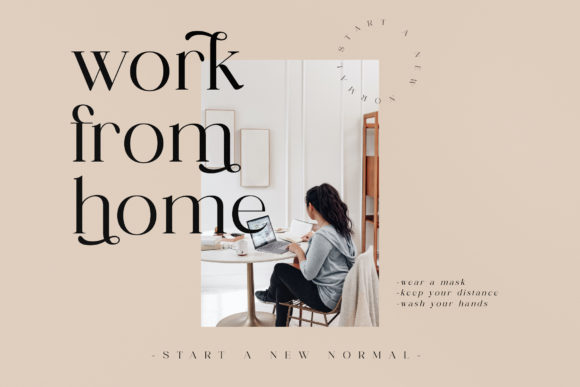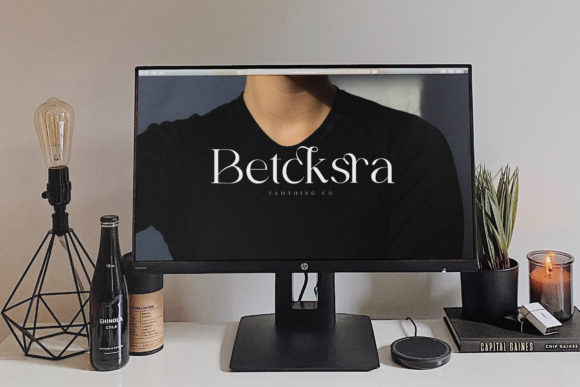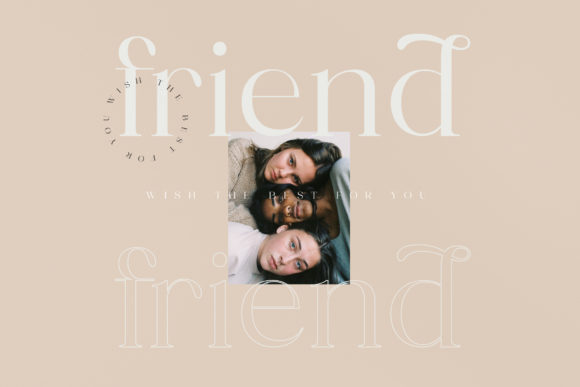
Introduction to Mafisha Font
Have you ever been in the middle of a creative project, staring at a blank canvas or screen, and suddenly, the perfect font pops into your head? For designers, this moment is like a breath of fresh air – it can make or break the entire aesthetic of a project. For me, that moment came when I discovered the Mafisha Font, a stunning serif typeface that exudes elegance and sophistication.
As a valuable design resource, Mafisha Font offers a high-quality, modern look that’s perfect for luxury logo designs, book titles, fashion brands, and magazine covers. With its unique style and transparent background, this font is a game-changer for any creative project. And the best part? It’s available for free download, making it an instant favorite among designers.
Key Features of Mafisha Font
- High-quality design for creative projects, perfect for graphic designers and artists.
- Unique and stylish design elements, making it an ideal choice for creative projects that require a touch of elegance.
Honest Review: Mafisha Font
- High-quality design: The Mafisha Font is well-crafted, with clean lines and a professional aesthetic.
- Wide range of uses: The font is versatile and can be used in a variety of creative projects, from logos to typography-based art.
- Limited font weights: While the font is well-designed, it’s limited to a few different weights, which may not offer the level of customization some designers are looking for.
Tips for Getting the Most Out of Mafisha Font
For the best results, use Mafisha Font in conjunction with other high quality design resources. Experiment with different font sizes, colors, and styles to create a unique and eye-catching design. Don’t be afraid to push the limits of the font and try new and creative ways to use it.
Common Use Cases for Mafisha Font
The Mafisha Font is a versatile design resource that can be used in a variety of creative projects, including logos, business cards, posters, and social media graphics. Its unique style makes it a great choice for designers looking to add a creative touch to their designs.